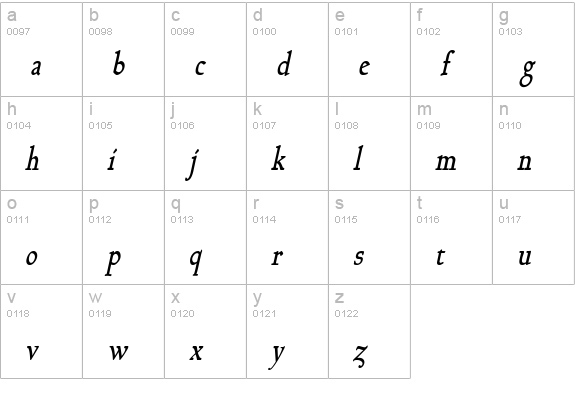
Bravo-Condensed Bold Italic Font Details
Bravo-Condensed Bold Italic is a strong, high-contrast, condensed-width, italic variant in the Bravo typeface family \xE2\x80\x94 well suited to headlines, attention-grabbing titles, and strong calls-to-action.
Introducing Bravo-Condensed Bold Italic font, a dynamic and eye-catching typeface that exudes confidence and modernity. This unique font combines the boldness of a condensed style with the elegance of italicized letterforms, creating a striking visual impact. Perfect for headlines, logos, posters, and other design projects that require a touch of sophistication and flair. And the best part? Bravo-Condensed Bold Italic font is available for free download at FontsMarket.com. This means you can easily add this stylish font to your collection without any cost. Don't miss out on the opportunity to enhance your designs with this versatile and stylish typeface. Download Bravo-Condensed Bold Italic today and elevate your creative projects to the next level!